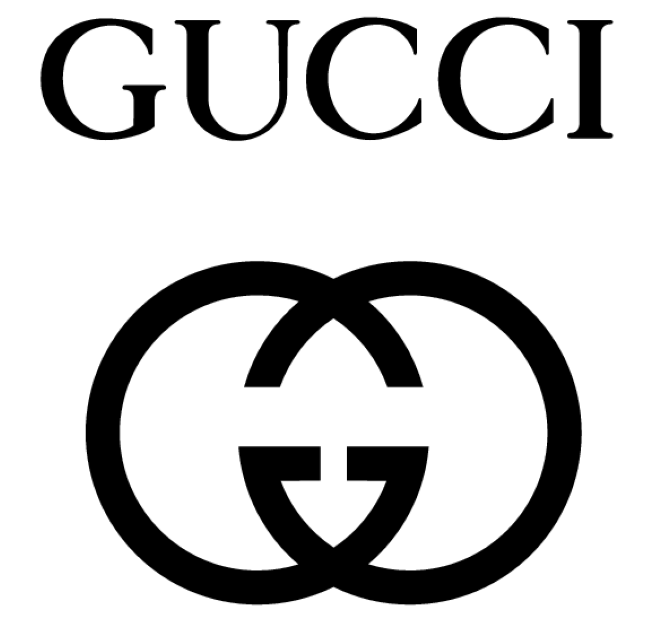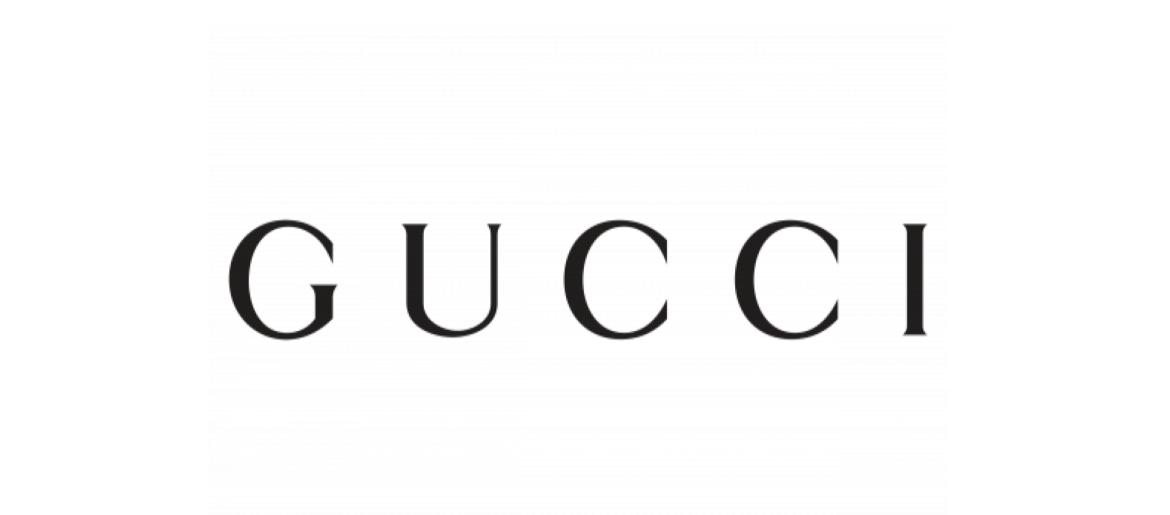
Gucci Font is a defining part of the brand’s iconic identity, symbolizing elegance, heritage, and luxury. The Gucci logo font appears on products, packaging, and advertisements worldwide, making it instantly recognizable in the fashion industry.
The Gucci logo font is based on a customized serif typeface with refined, classic letterforms that reflect the brand’s timeless aesthetic. Its sophisticated style conveys prestige and exclusivity, perfectly aligning with Gucci’s image as a leading luxury fashion house. The Gucci logo font reinforces the brand’s commitment to heritage while maintaining a modern appeal.
By using an elegant and timeless font, Gucci communicates craftsmanship, sophistication, and luxury in its global branding.
Gucci is one of the world’s most prestigious fashion brands, founded in Florence, Italy, in 1921. Known for its luxury clothing, accessories, and leather goods, Gucci has built a reputation for combining Italian craftsmanship with bold, innovative designs that continue to shape the fashion industry worldwide.